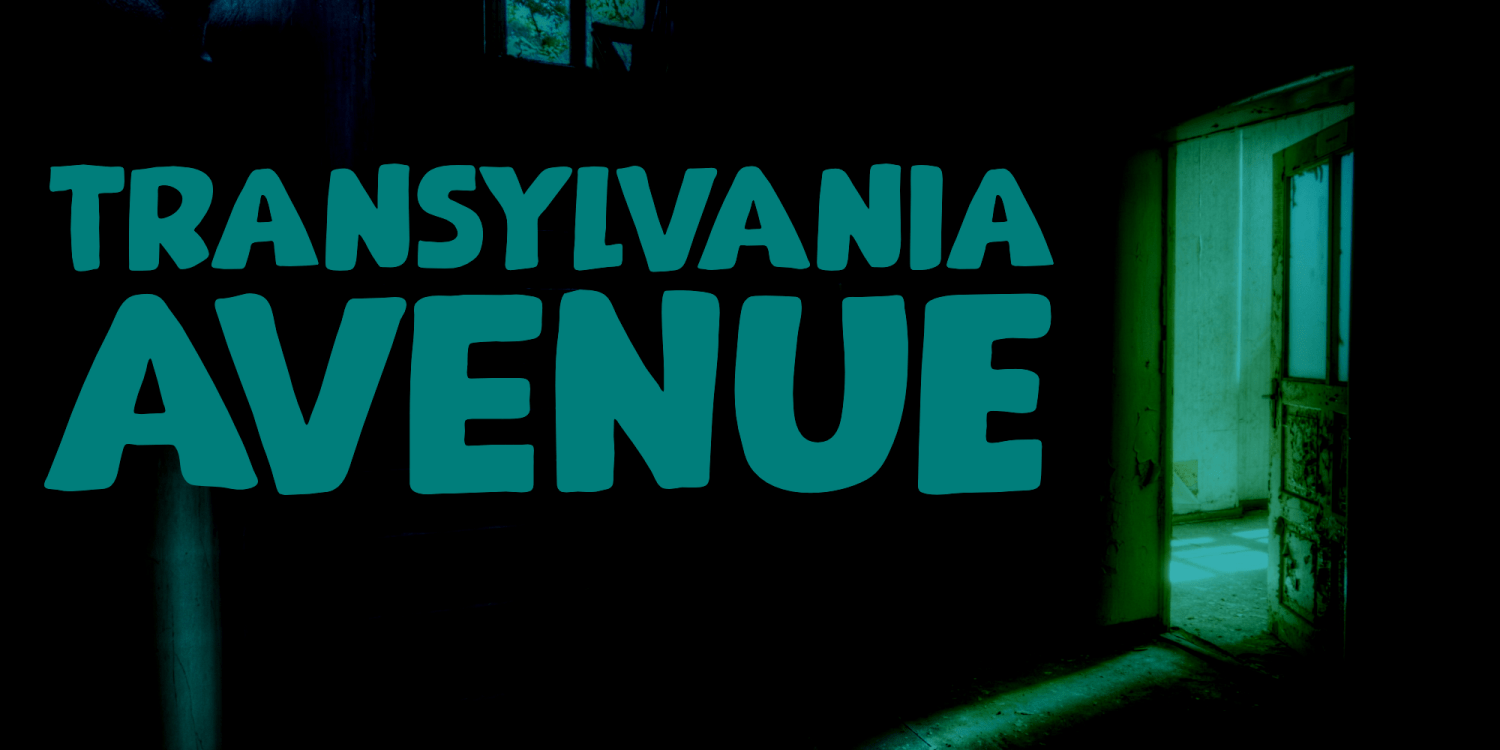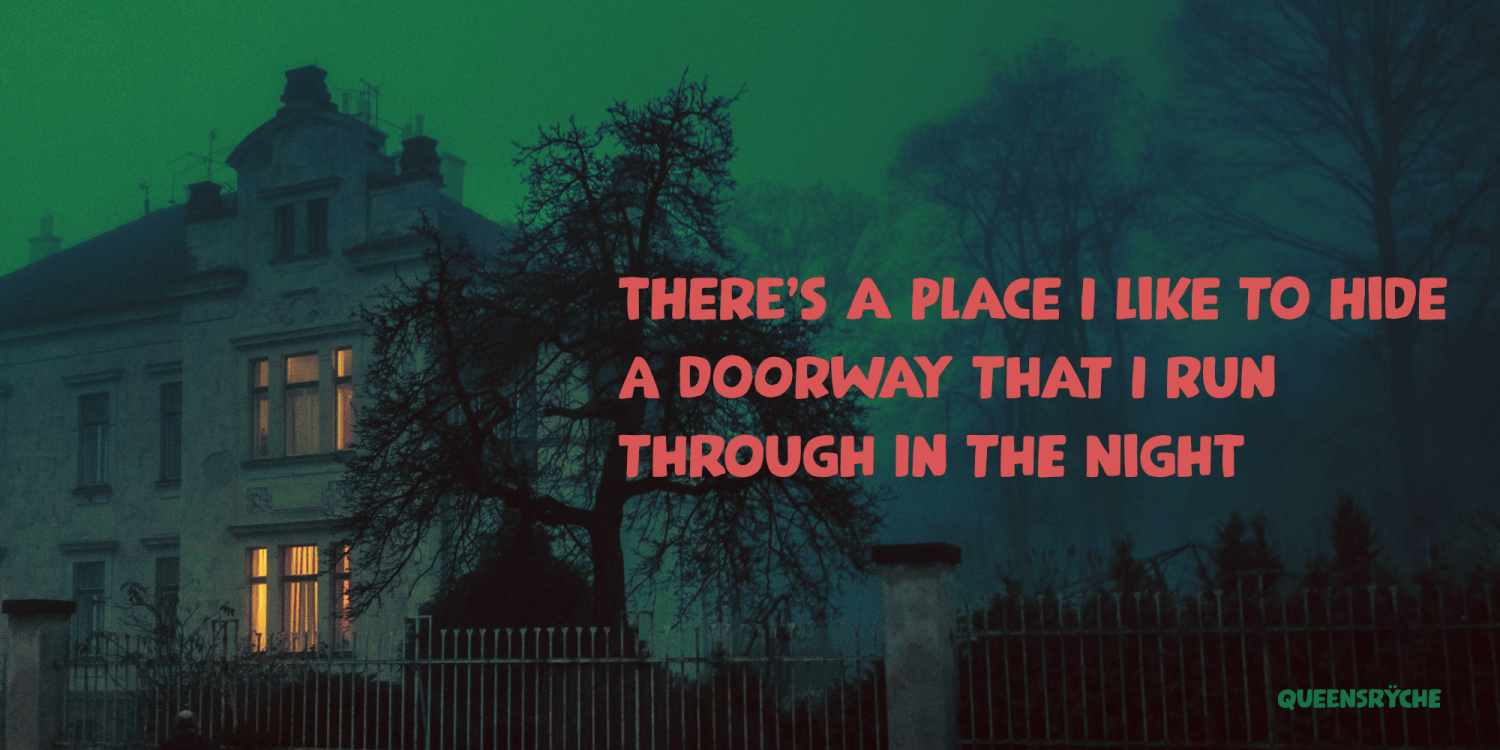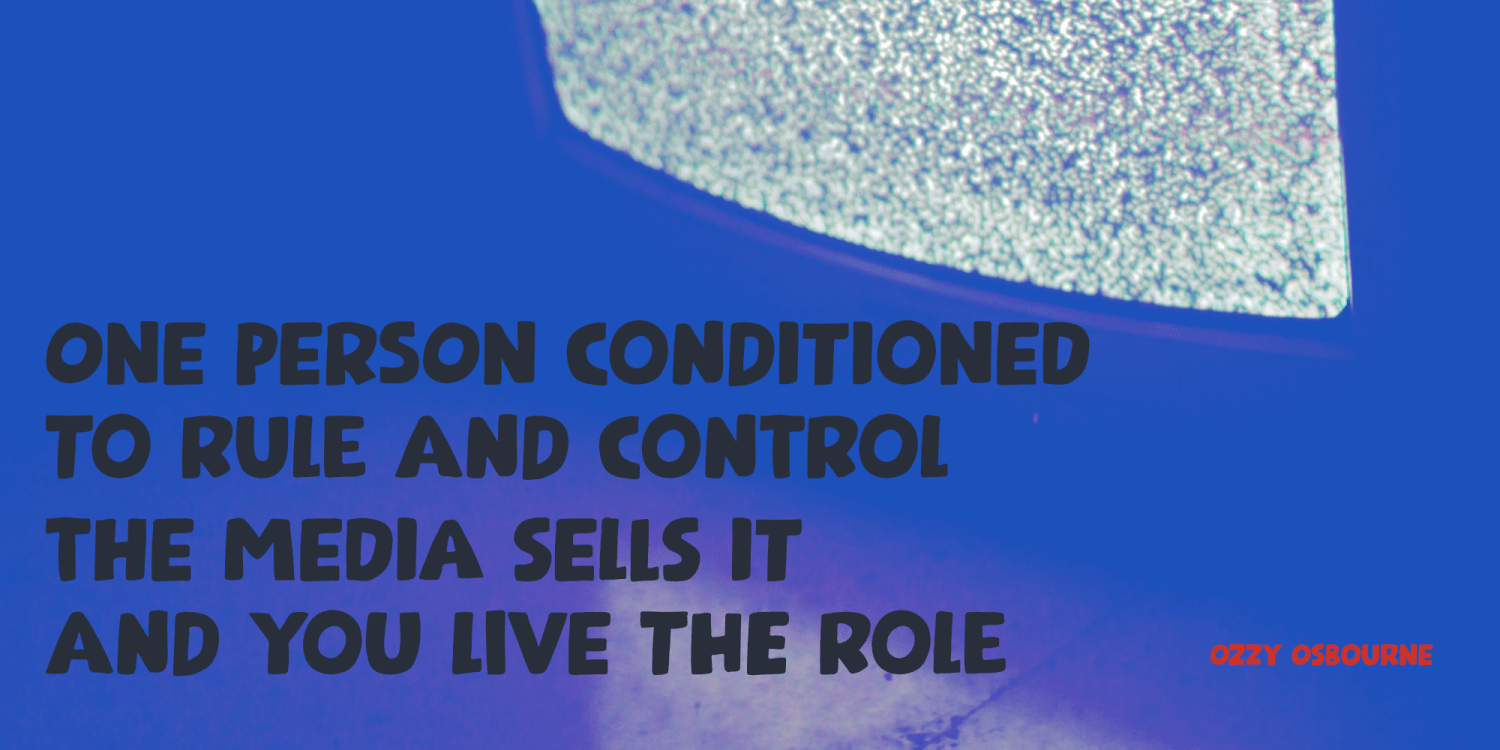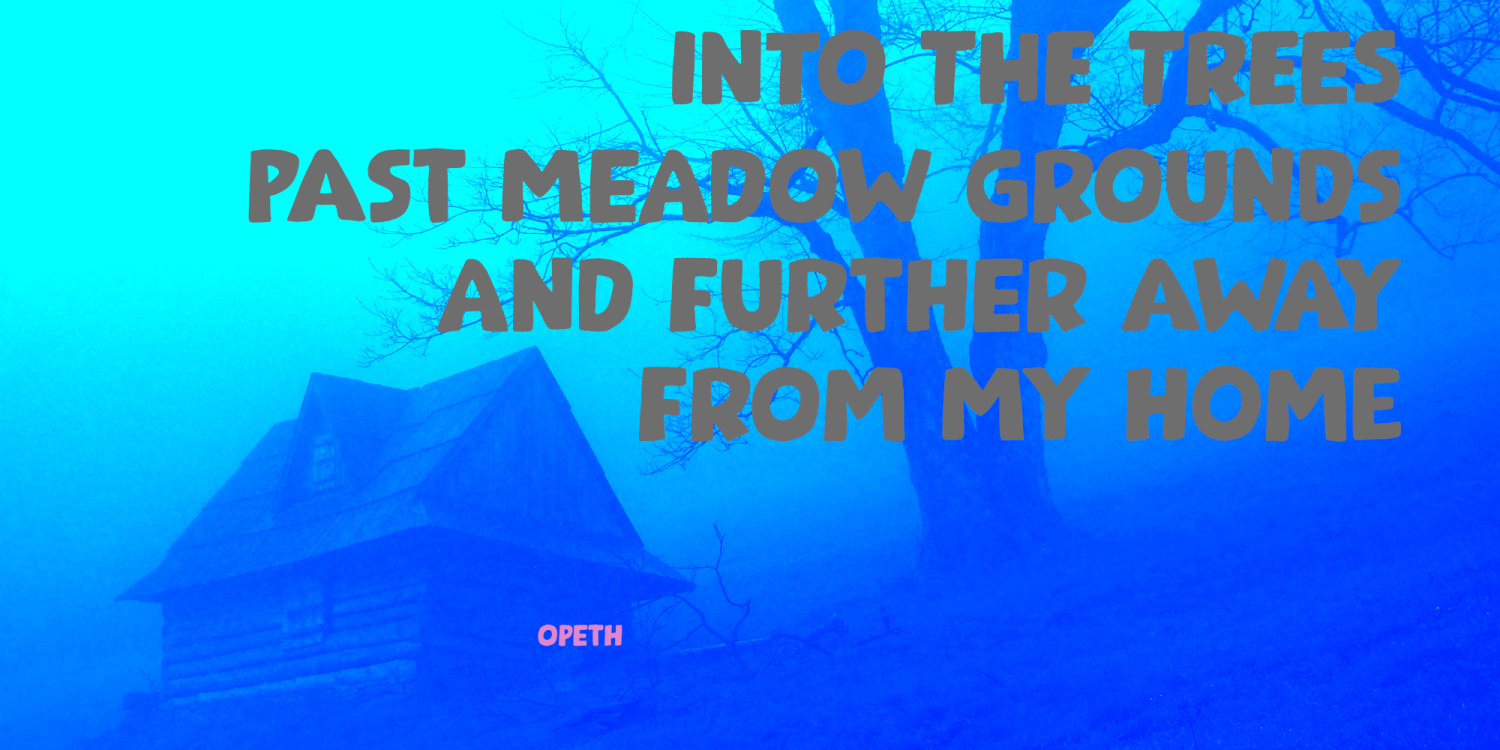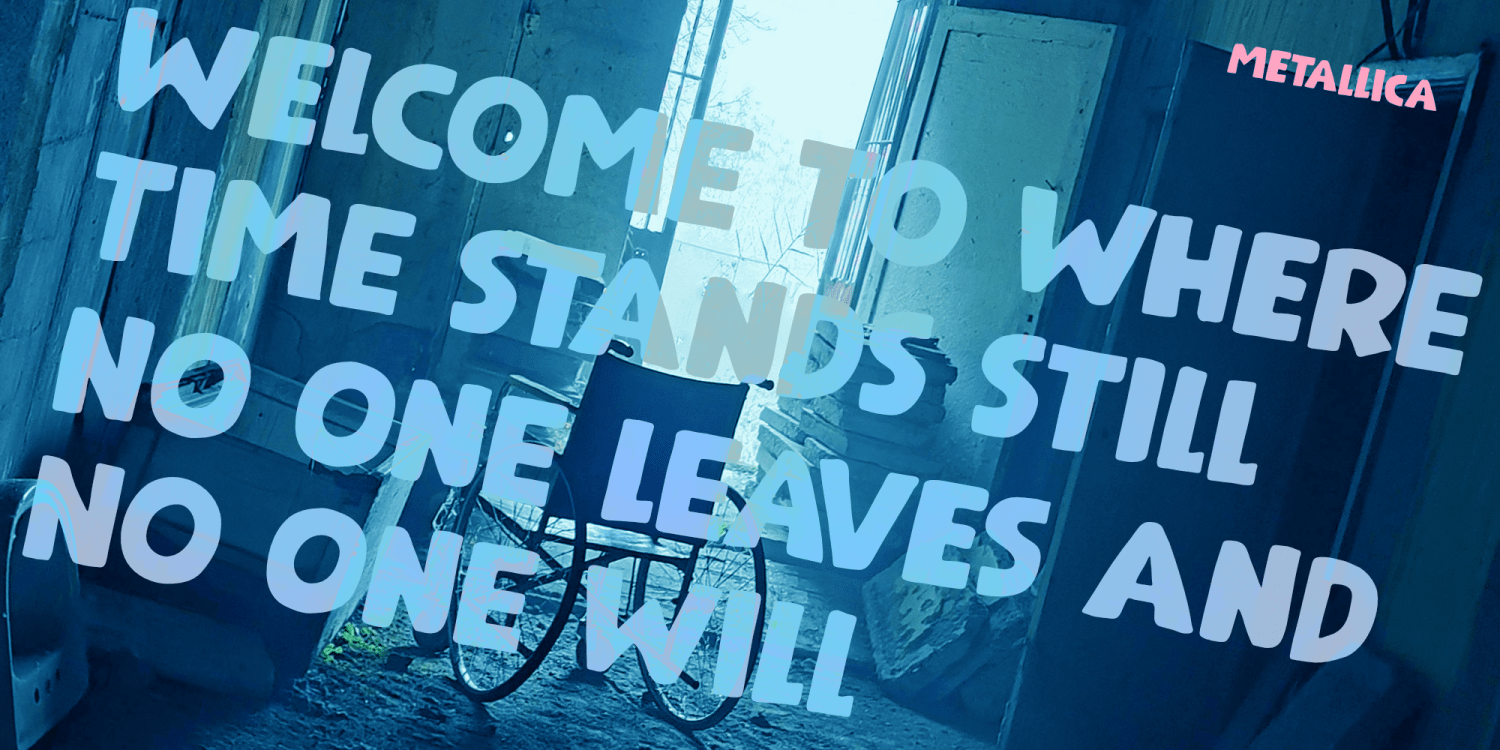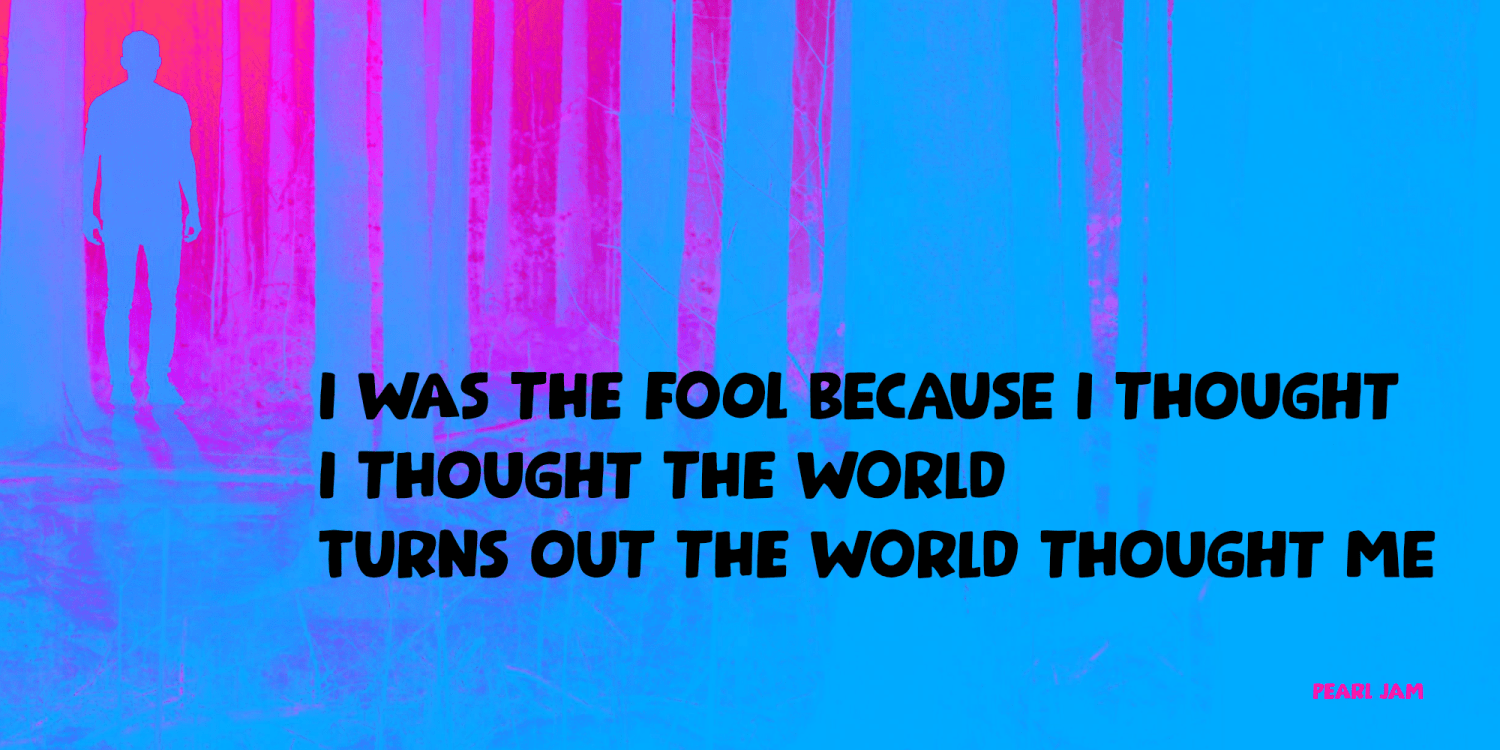
Transylvania Avenue
Transylvania Avenue is a really loud, bombastic font. The name implies it has a bit of horror in it, but who needs spooky fiction when reality is scarier?
Transylvania Avenue comes with all the accents that make languages and other cultures so intriguing. It also has a full set of auto-rotating alternates, in case you need a change of cookie cutter texts and endless monologues.